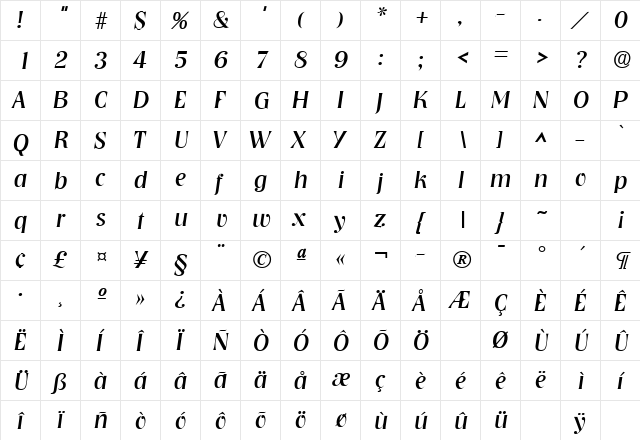
Nashville Italic
Design Context for Nashville Typeface
Nashville is a composed and adaptable typeface that performs quietly and consistently across a wide range of design contexts. The dynamic lean of this cut emphasises speed and emphasis in any layout.
Pro Tip: Try Nashville for annotation and caption copy alongside an upright companion — the contrast in angle creates a dynamic but ordered typographic system.